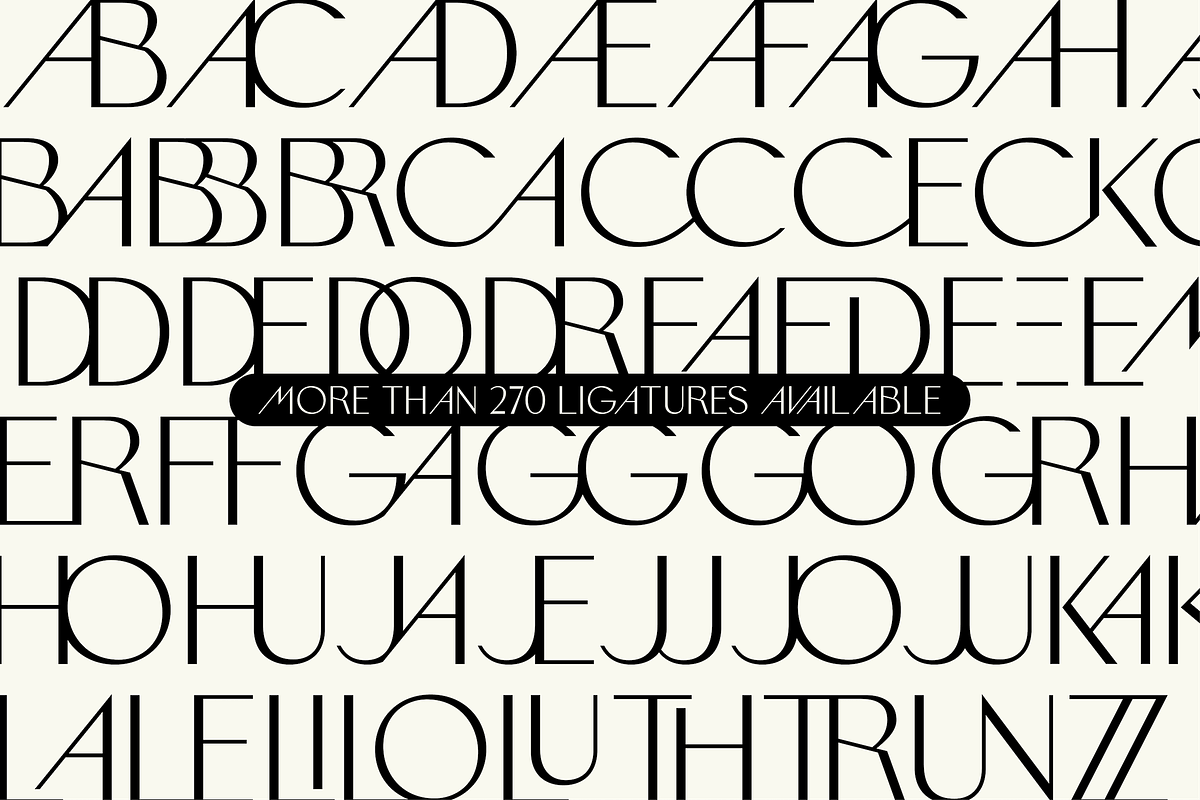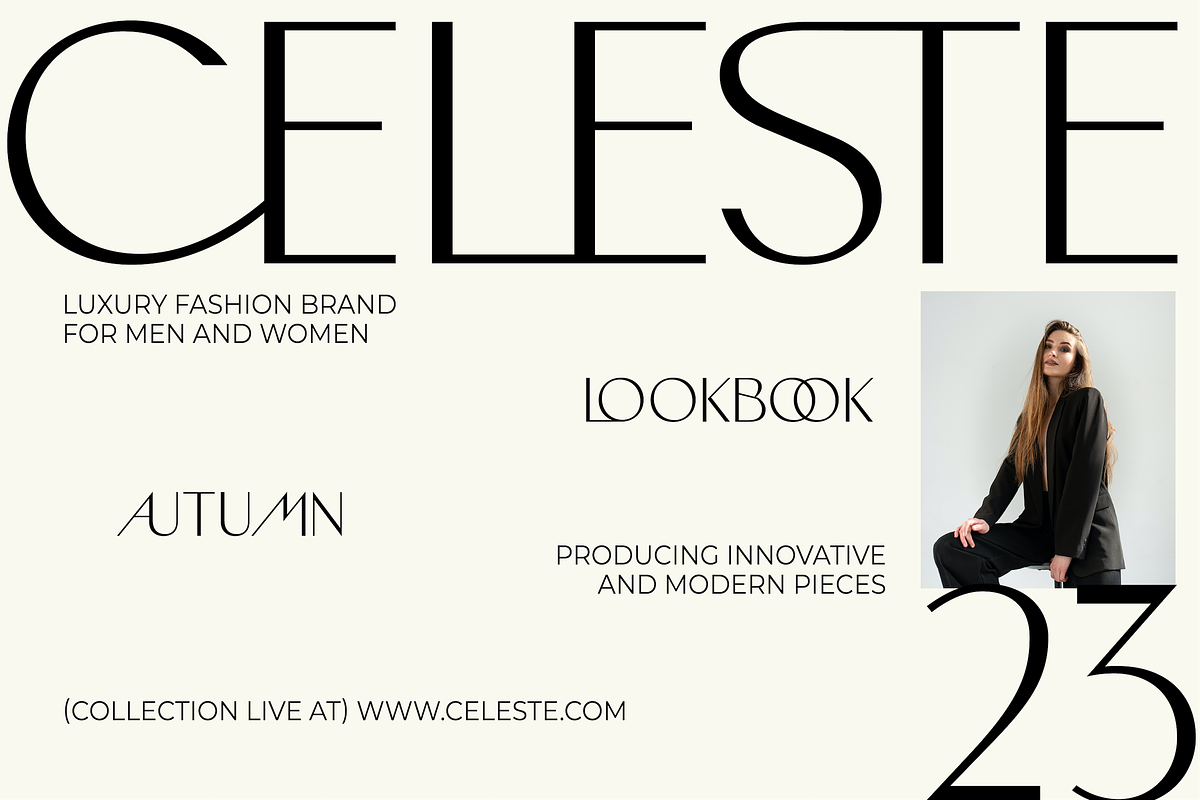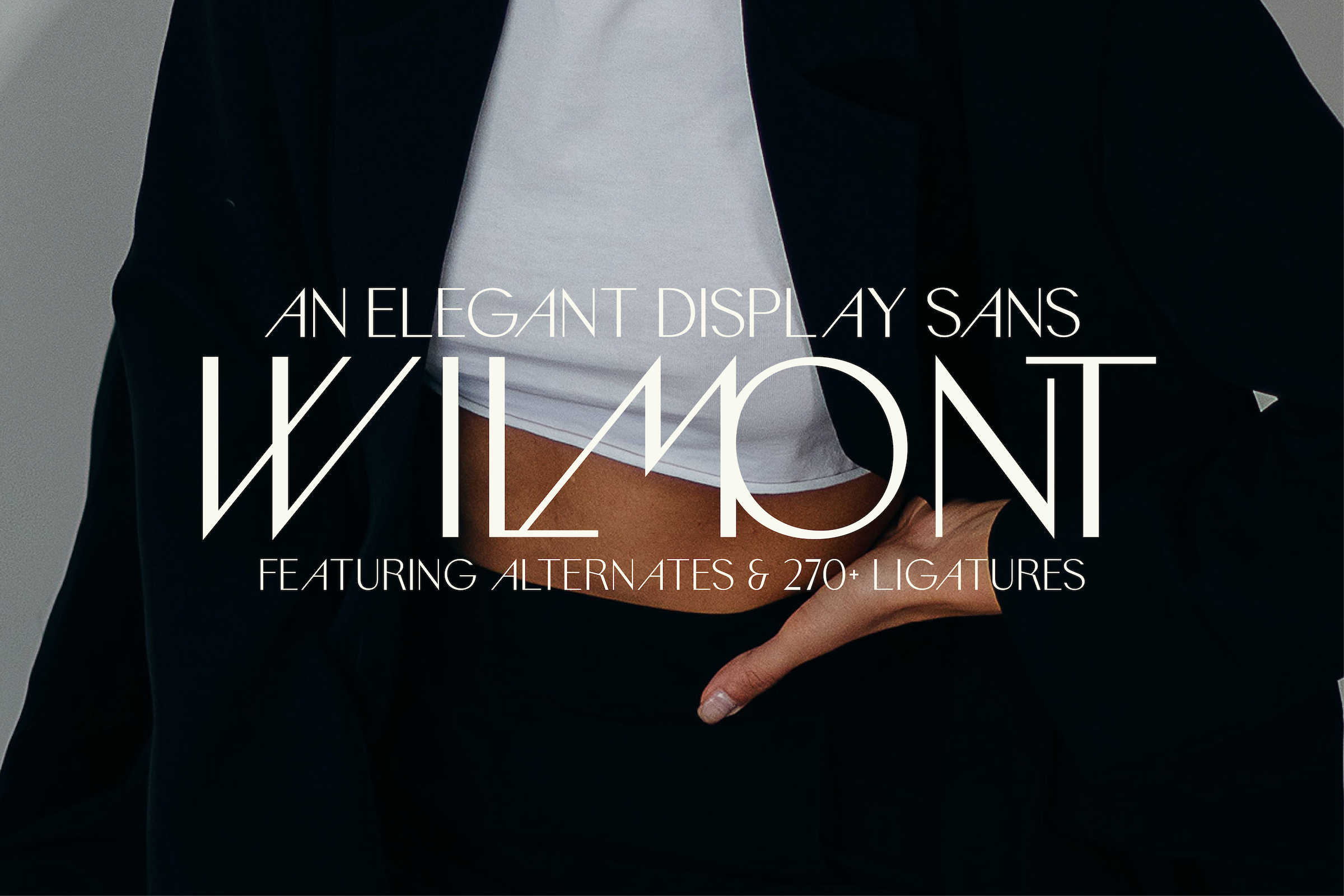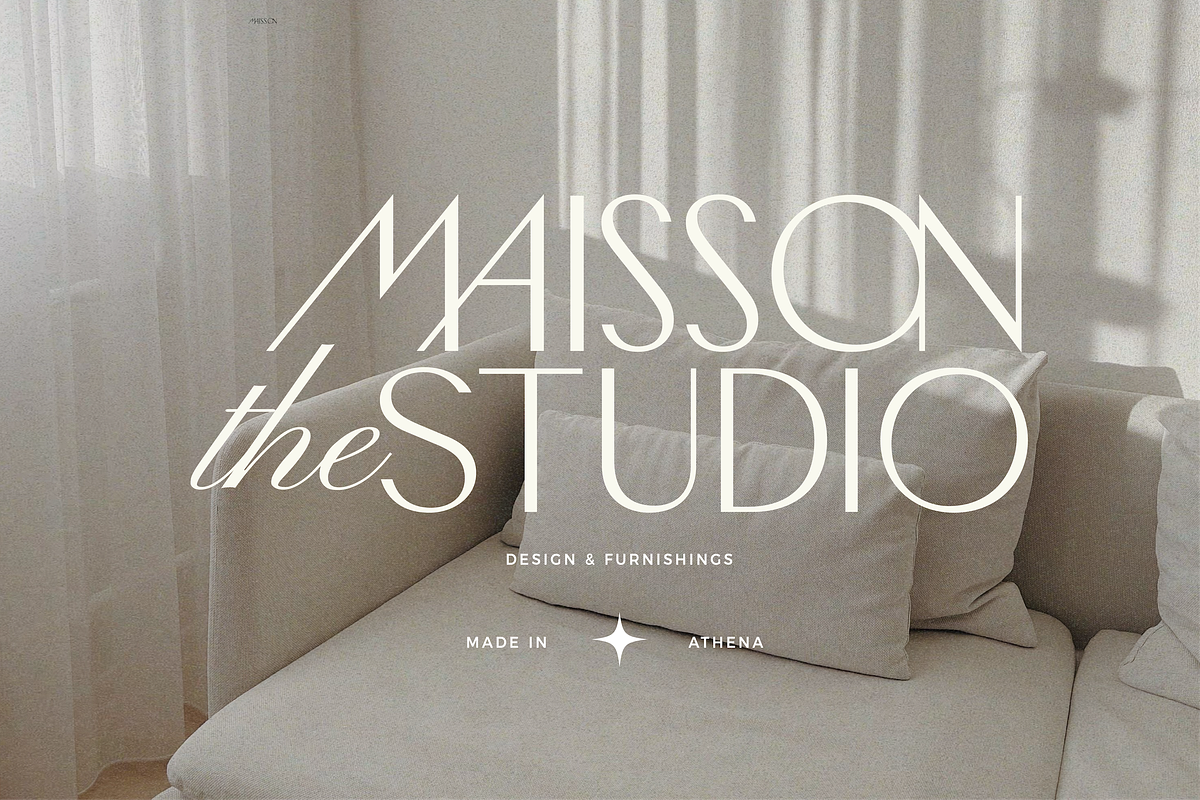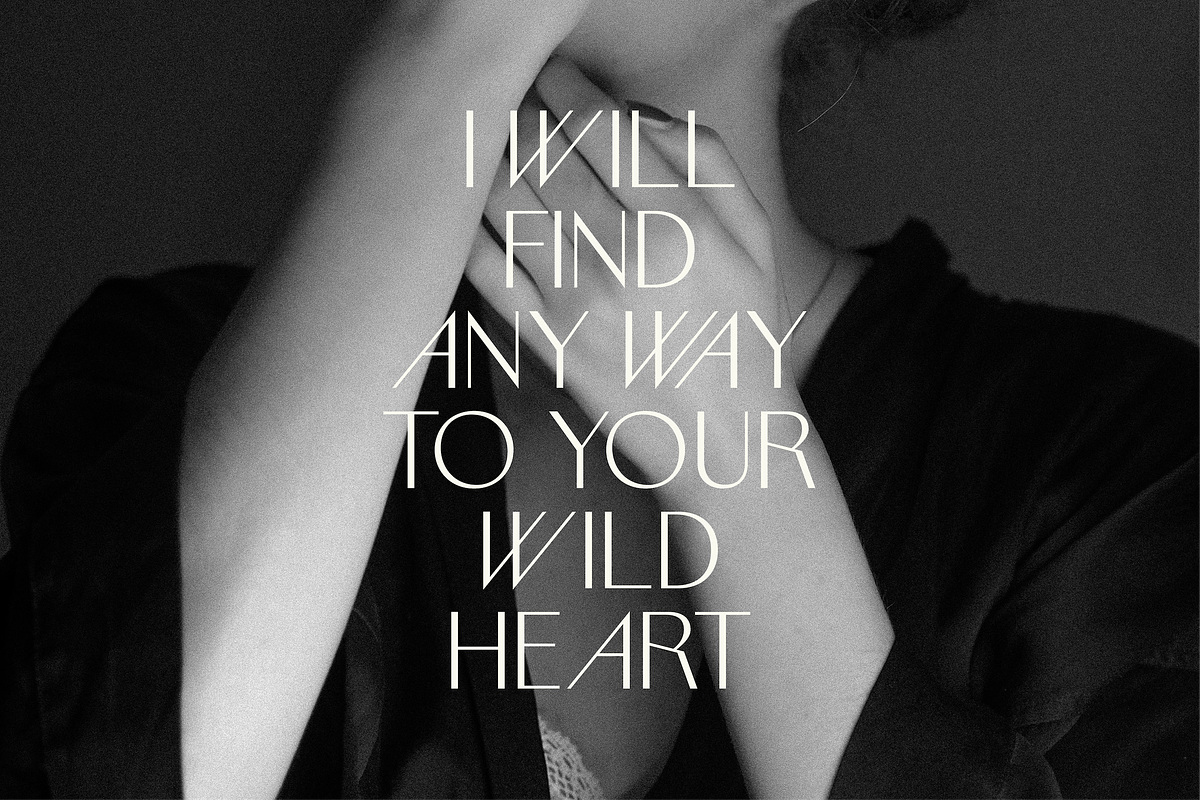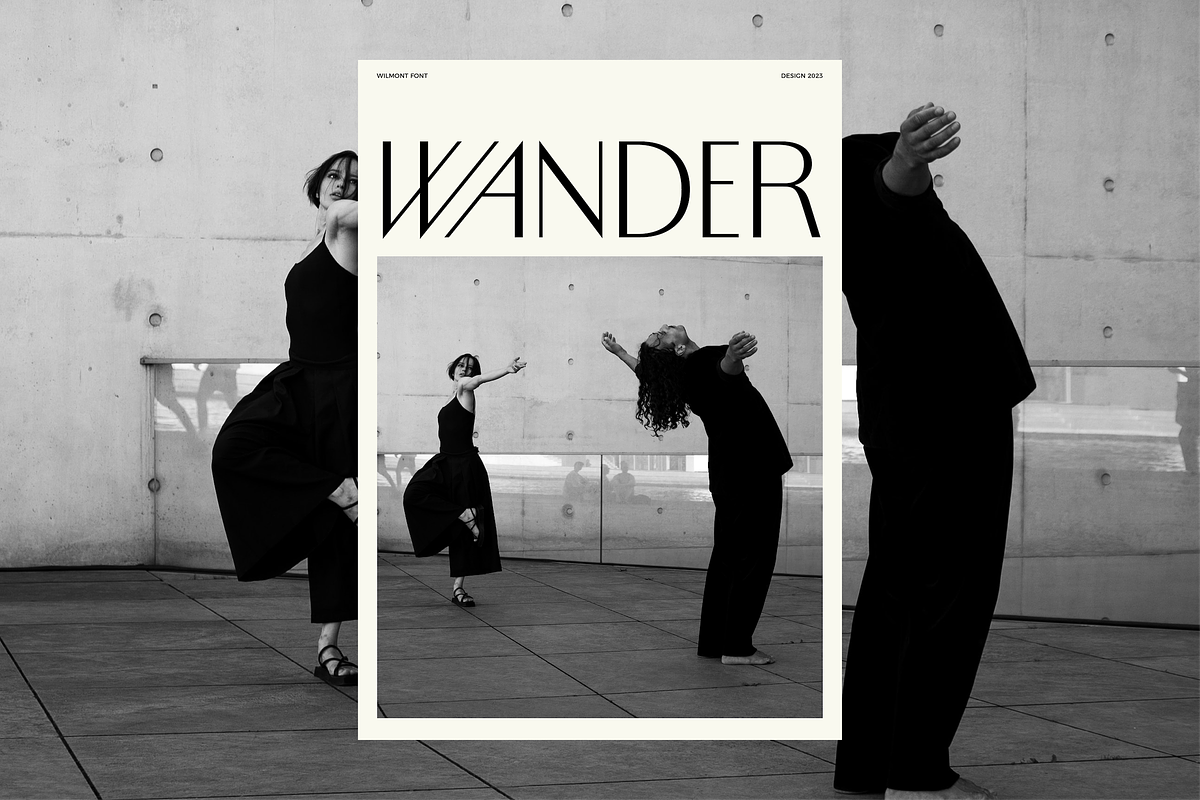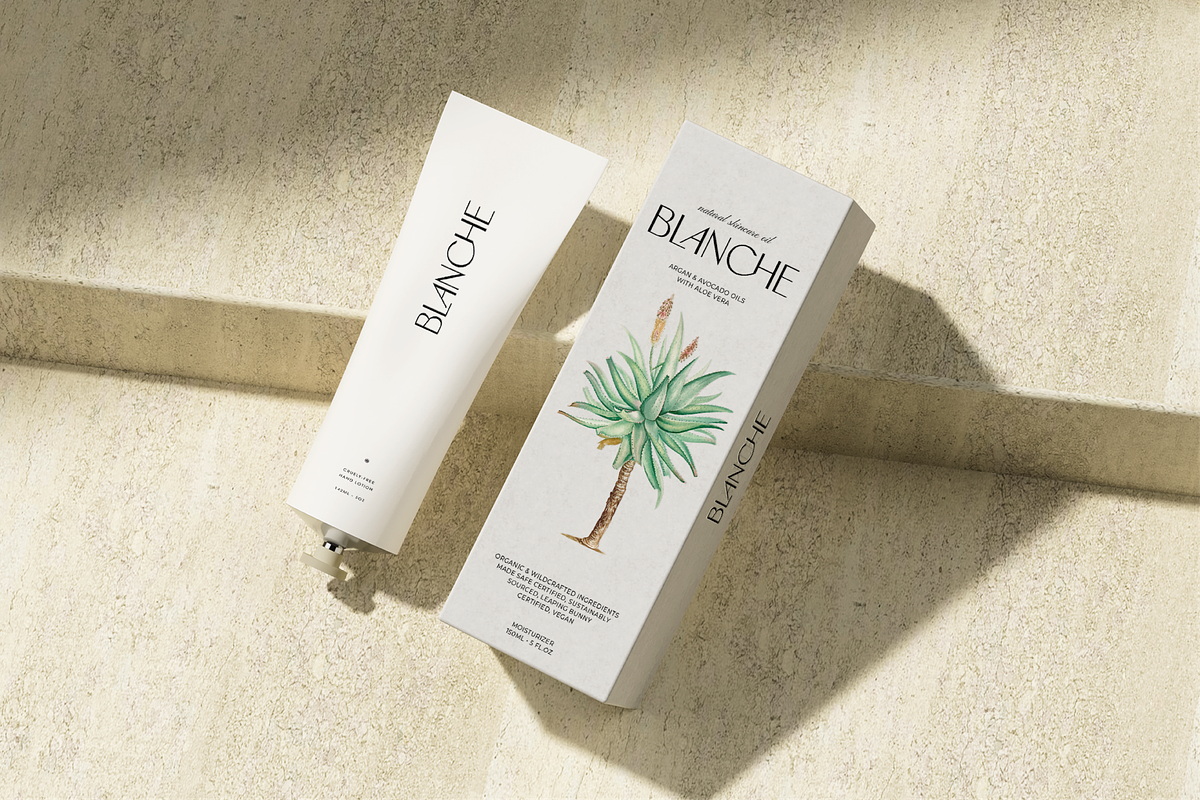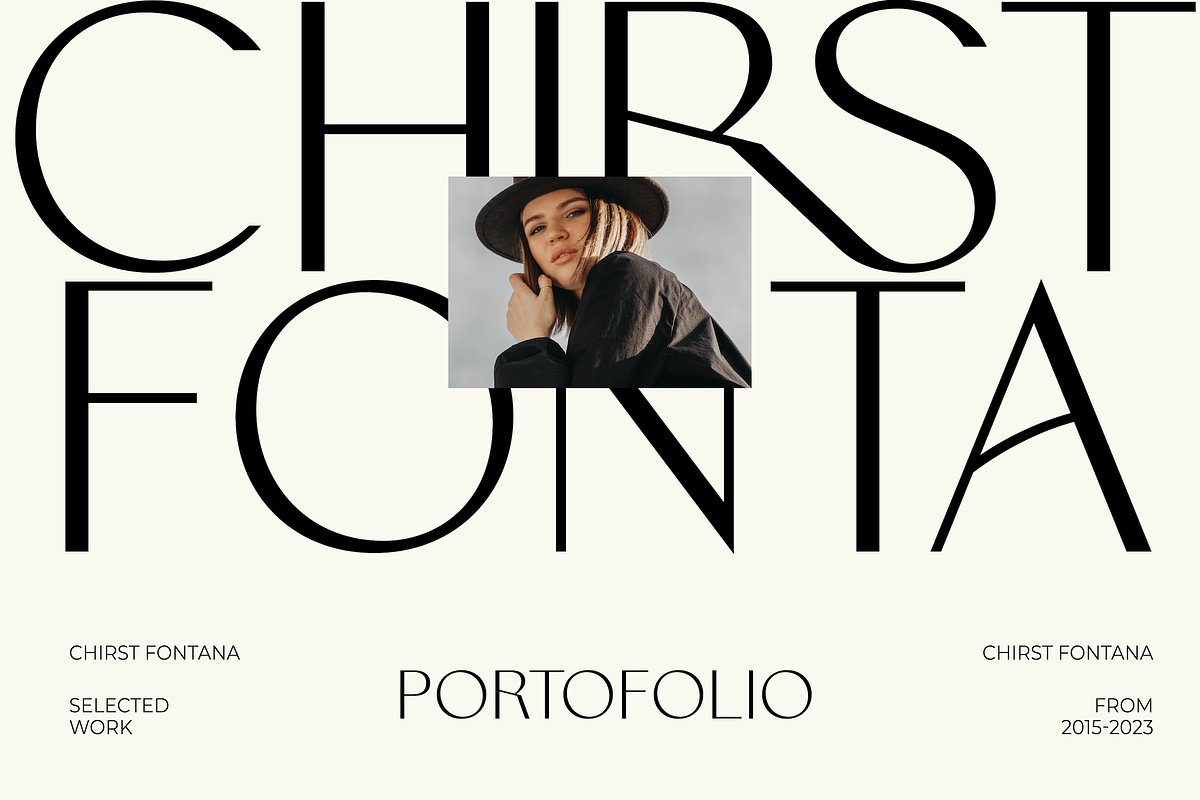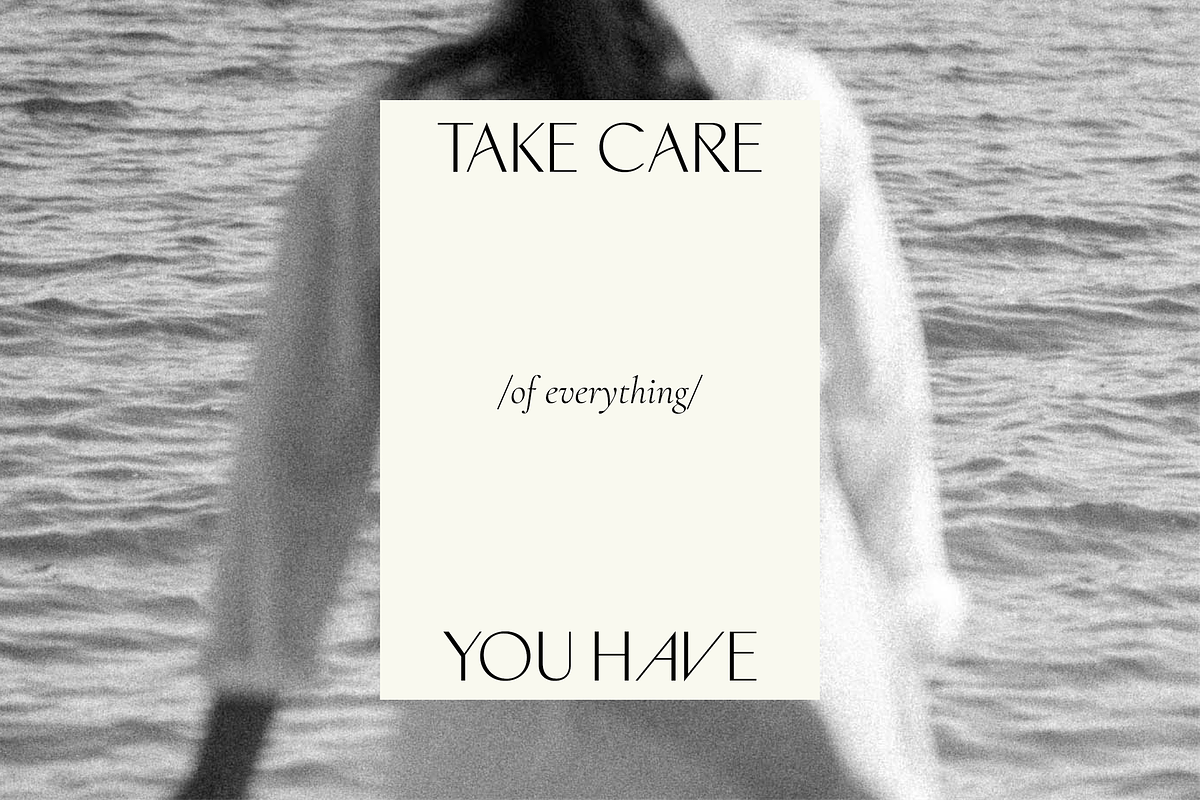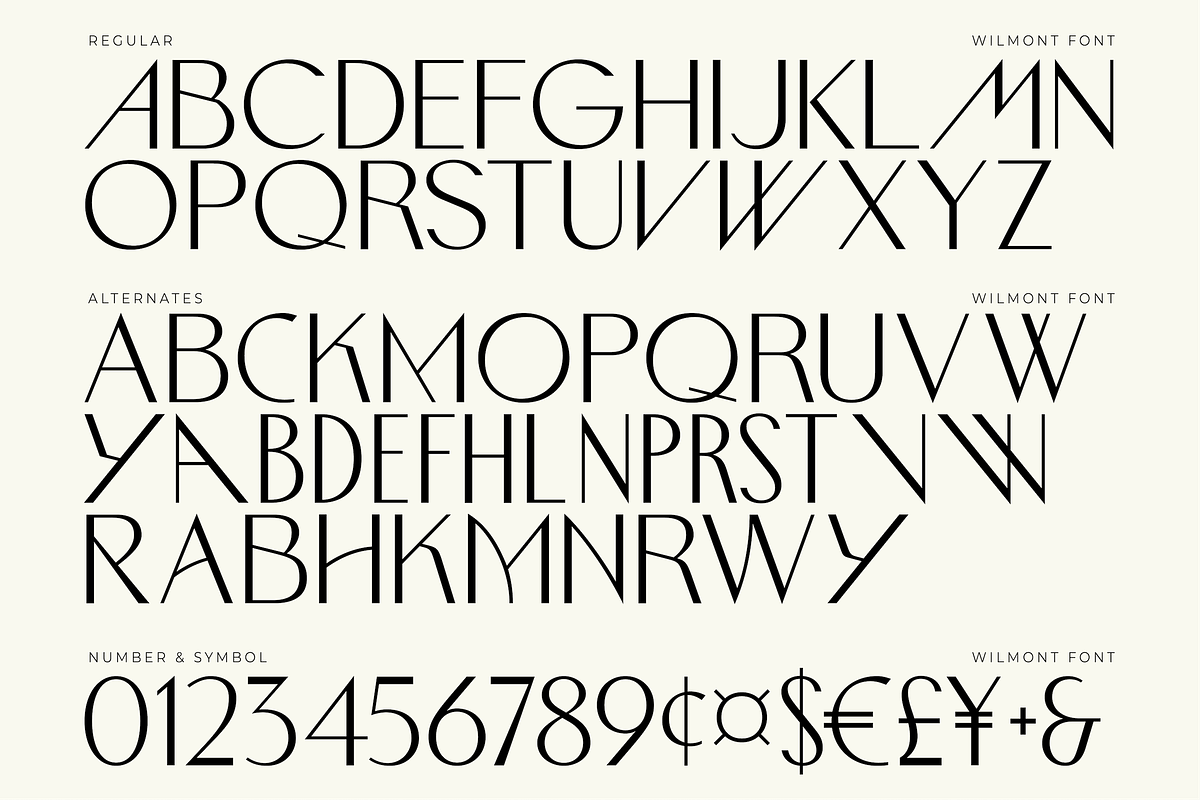
Wilmont - Elegant Ligature Font
Wilmont is a luxurious and minimalist sans serif typeface that was created with a focus on maximizing usability. It features over 270 alternate characters and ligatures which will give you so many options for creating custom looking type designs.
This extreme flexibility makes Wilmont a great choice for creating your product packaging designs, logos, large headlines or titles and so much more!